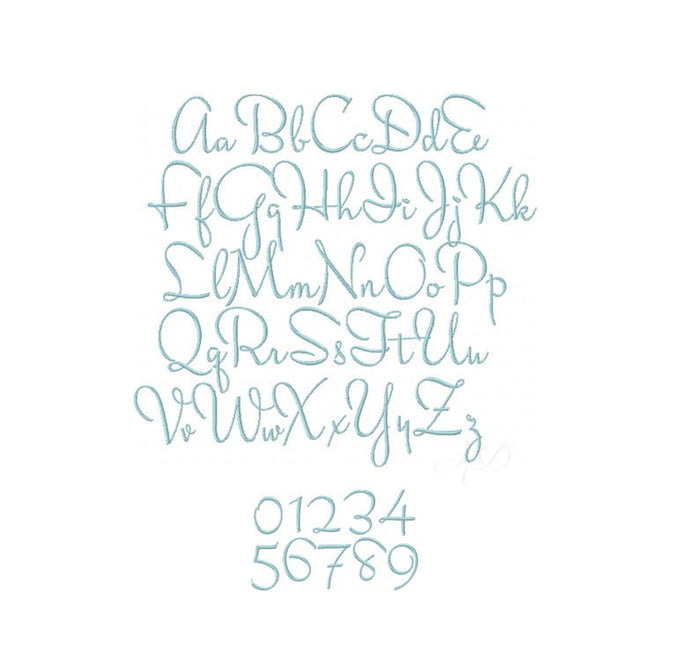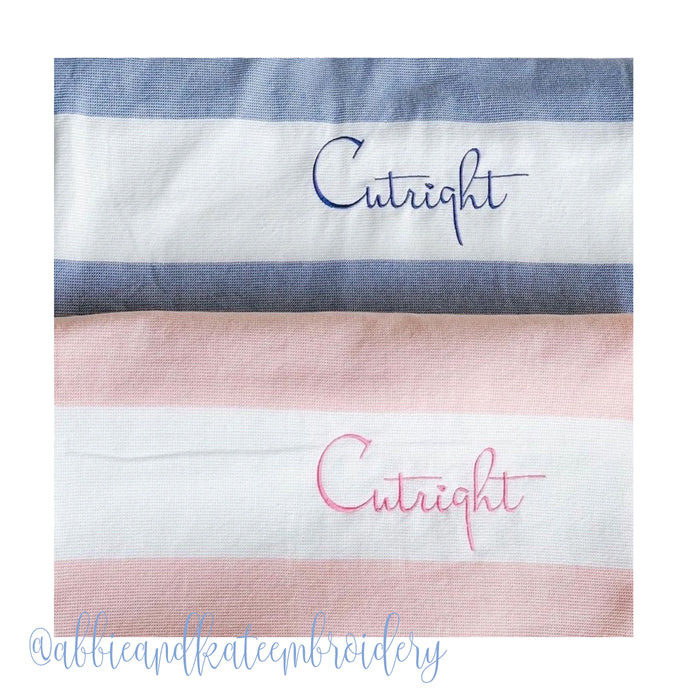
Stella Blaire Embroidery 4x4 Font Package
Transform your crafting projects with the Stella Blaire Embroidery Font Package. This Retro Vintage Script Font is perfect for embroidery machine monogramming, featuring uppercase and lowercase letters, along with numbers 0-9, all designed with beautiful satin stitching.